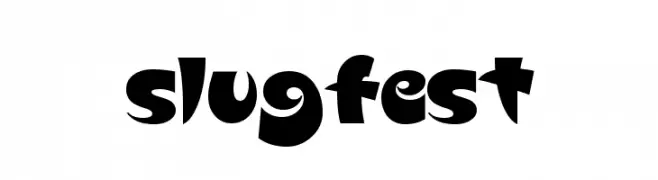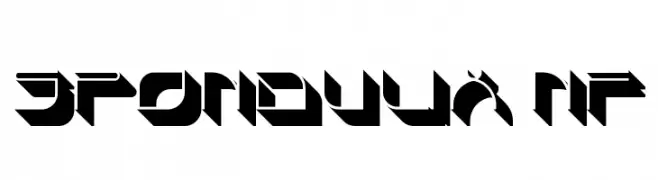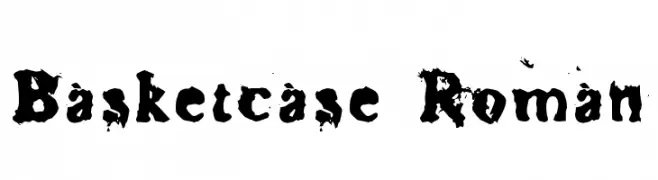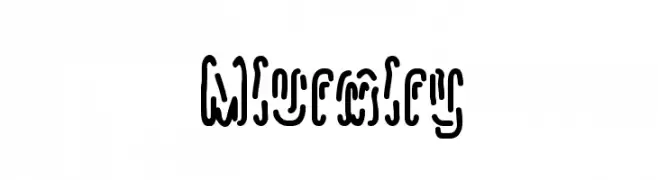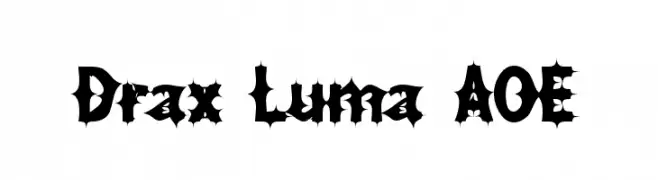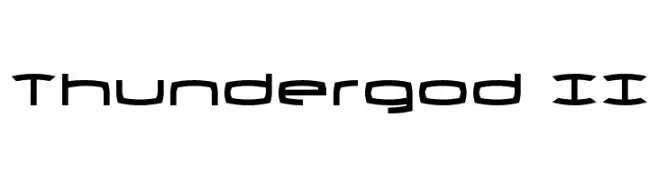
( Fonts by Nick Curtis - www.nicksfonts.com )
A bold, playful font with rounded, whimsical characters.
( Fonts by Nick Curtis - www.nicksfonts.com )
A bold, futuristic font with sharp angles and geometric shapes.
( Fonts by Jacob Fisher - www.pizzadude.dk )
A playful, bold font with chunky, rounded characters and tight spacing.
( Fonts by Astigmatic One Eye Typographic Institute - Brian J. Bonislawsky - astigmatic.com )
A bold, gothic-inspired font with sharp, angular edges and intricate details.
( Fonts by www.braineaters.com )
A whimsical, hand-drawn font with playful curves and irregular strokes.
A futuristic, angular font with geometric shapes and consistent stroke thickness.